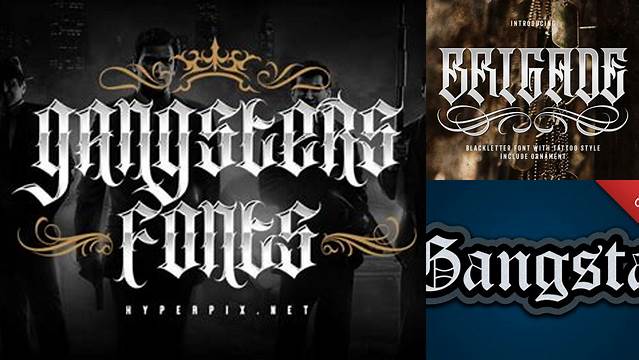
Free Gangsta Cursive Font Generator: Create Stylish Text!
Hey guys! Ever wanted to add a little street style to your text? You've come to the right place! We're diving deep into the world of gangsta cursive fonts, and how you can generate them for free. Whether you're designing a logo, creating social media graphics, or just want to spice up your personal projects, these fonts can add a unique flair. Let's get started!
What is Gangsta Cursive Font?
So, what exactly is a gangsta cursive font? It's more than just fancy handwriting. These fonts often have a bold, edgy look with elaborate swirls and unique letterforms. Think of that classic graffiti style mixed with elegant calligraphy. Gangsta cursive fonts usually evoke a sense of urban cool and rebellious energy, making them perfect for projects that need a strong visual impact. You might see these fonts used in hip-hop album covers, streetwear branding, and even tattoo designs. The key is the blend of fluidity and boldness, giving your text a distinctive and memorable appearance. When used correctly, gangsta cursive fonts can really make your message stand out from the crowd.
Why Use Gangsta Cursive Fonts?
Why should you even bother with gangsta cursive fonts? Well, for starters, they're incredibly eye-catching! In a world saturated with plain, generic text, using a gangsta cursive font can instantly grab attention. These fonts are perfect for adding a touch of personality and attitude to your designs. Whether you're working on a poster, a website header, or even a simple invitation, the right font can make all the difference. They convey a sense of style, confidence, and urban flair that other fonts simply can't match. Plus, they're a fun way to express yourself creatively. If you want your text to make a statement, gangsta cursive fonts are definitely worth exploring. They add a layer of visual interest that can elevate your project from ordinary to extraordinary.
Best Gangsta Cursive Fonts for Logos
When it comes to logos, the right font can make or break your brand's identity. Gangsta cursive fonts can be an excellent choice if you're aiming for a bold, edgy, and memorable look. The key is to choose a font that is both stylish and legible. Some of the best gangsta cursive fonts for logos include scripts with strong, flowing lines and unique letterforms. Think about fonts that have a sense of movement and energy, reflecting the dynamic nature of your brand. It's also important to consider the overall aesthetic of your logo. The font should complement the other design elements, creating a cohesive and visually appealing image. Experiment with different fonts and see how they look with your logo's colors and symbols. A well-chosen gangsta cursive font can give your logo a distinctive edge, helping it stand out in a competitive market.
Gangsta Cursive Fonts for Social Media
Social media is all about grabbing attention, and gangsta cursive fonts are perfect for that! Using these fonts in your posts, stories, and profile headers can instantly make your content more eye-catching. They add a touch of personality and style that can help you stand out from the crowd. When choosing a font for social media, think about readability. While you want something stylish, you also need to make sure your text is easy to read on small screens. Bold, clear gangsta cursive fonts work best. You can use these fonts for quotes, announcements, or even just to add some flair to your captions. They're also great for creating visually appealing graphics for platforms like Instagram and Facebook. Experiment with different fonts and see how they look in your social media feed. A well-placed gangsta cursive font can make your content more engaging and shareable.
Using Gangsta Cursive Fonts in Design Projects
Gangsta cursive fonts aren't just for logos and social media; they can be used in a wide range of design projects. Think about posters, flyers, invitations, and even website headers. These fonts can add a unique and stylish touch to any design. When incorporating gangsta cursive fonts into your projects, consider the overall tone and message you want to convey. These fonts are best suited for designs that need a bold, edgy, or urban feel. They can also work well in projects that aim for a retro or vintage aesthetic. Experiment with different font sizes, colors, and placements to see what works best for your design. You might even try combining gangsta cursive fonts with other font styles to create an interesting contrast. The key is to use these fonts thoughtfully and creatively to enhance your design.
Tips for Choosing the Right Gangsta Cursive Font
Choosing the right gangsta cursive font can be a bit overwhelming, especially with so many options available. Here are a few tips to help you make the best choice. First, consider the purpose of your project. What kind of message are you trying to convey? A font that's perfect for a party invitation might not be suitable for a professional logo. Second, think about readability. While gangsta cursive fonts are stylish, they should still be easy to read. Avoid fonts with overly elaborate details that can make the text look cluttered. Third, consider the overall aesthetic of your project. The font should complement the other design elements, such as colors, images, and layout. Fourth, don't be afraid to experiment! Try out different fonts and see how they look in your design. Finally, get feedback from others. Show your designs to friends or colleagues and ask for their opinions. By following these tips, you can choose a gangsta cursive font that perfectly matches your needs.
Creating Custom Gangsta Cursive Fonts
If you're feeling extra creative, why not try creating your own custom gangsta cursive font? This might sound intimidating, but it's actually quite doable with the right tools and a bit of practice. There are several font creation software programs available, both free and paid, that can help you design your own fonts. These programs typically allow you to draw each letter individually, adjust the spacing and kerning, and even add special ligatures and glyphs. Creating a font from scratch takes time and effort, but it's a rewarding process that can result in a truly unique and personalized typeface. Plus, having your own custom gangsta cursive font can give your projects a distinctive edge. If you're serious about typography, creating your own fonts is a great way to expand your design skills.
Where to Find Inspiration for Using Gangsta Cursive Fonts
Need some inspiration for using gangsta cursive fonts in your projects? There are plenty of places to find it! Start by browsing online design galleries and portfolios. Websites like Behance and Dribbble showcase the work of talented designers from around the world, and you can often find examples of creative typography and font usage. Social media platforms like Instagram and Pinterest are also great sources of inspiration. Search for hashtags related to typography, graphic design, and gangsta cursive fonts to see what others are creating. You can also look at examples of gangsta cursive fonts in popular culture, such as album covers, movie posters, and streetwear branding. Pay attention to how the fonts are used in different contexts and consider how you can adapt those ideas to your own projects. Don't be afraid to experiment and try new things. The more you explore, the more inspiration you'll find.